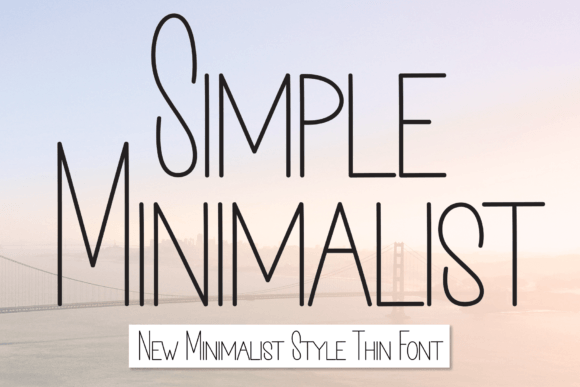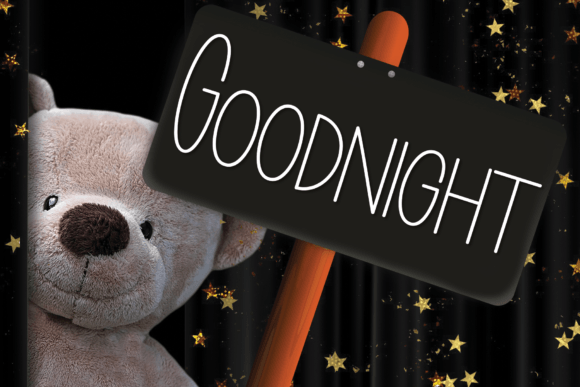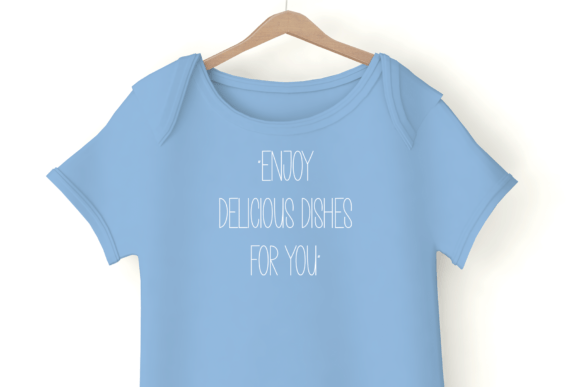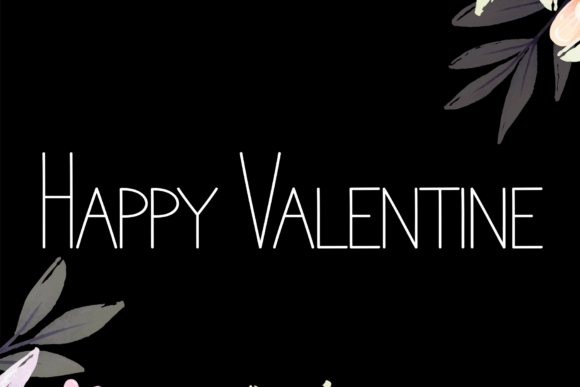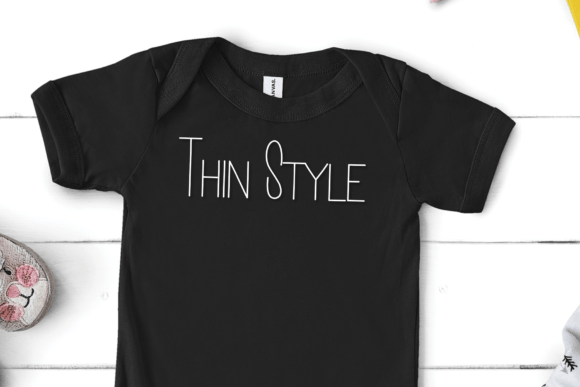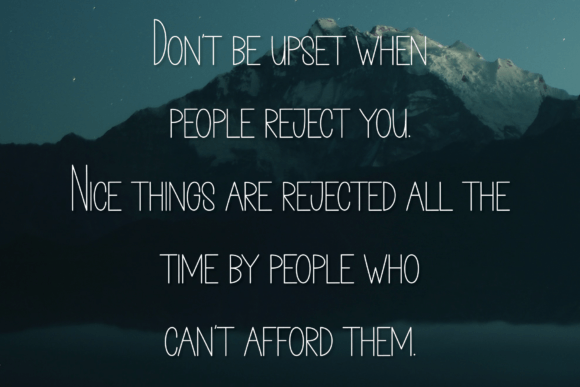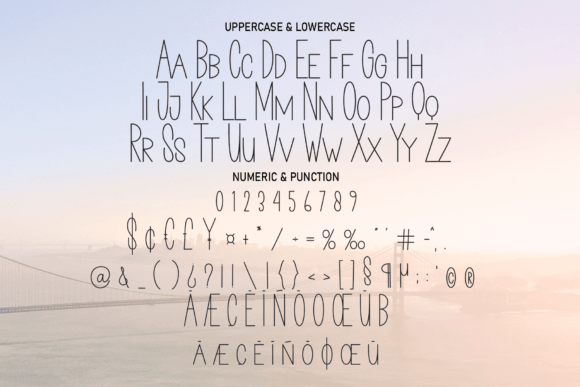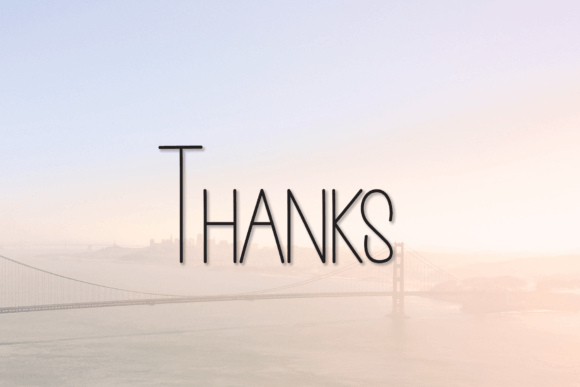
Simple Minimalist Font
A Clean and Effortless Handwritten Typeface
Simple Minimalist is a versatile handwritten font designed to bring a fresh, modern feel to your creative projects. Its smooth curves and clean strokes make it perfect for achieving a natural, minimalist look.
Whether you’re designing for personal use or professional branding, Simple Minimalist helps you create work that feels stylish, clear, and approachable.
Ideal for Greeting Cards and Invitations
This font is a great choice for greeting cards and invitations. Its simple, relaxed style makes your messages feel sincere and personal.
Use it for wedding invites, birthday cards, or thank-you notes. The clean letterforms keep your text legible while adding a warm, human touch.
Pair Simple Minimalist with neutral backgrounds and delicate illustrations for a soft, modern design that feels authentic and inviting.
Perfect for Headlines and Digital Content
Simple Minimalist shines in headlines and social media graphics. Its easygoing vibe helps your titles feel engaging without being overwhelming.
Use it to create blog headers, digital ads, or social media posts that stand out. Even at smaller sizes, the font remains crisp and readable.
Adding Simple Minimalist to your online content brings a cohesive, polished look that feels natural and professional.
Great for Branding and Packaging
If you want your brand to feel clean and contemporary, Simple Minimalist is the perfect font. It works beautifully in logos, packaging, and labels.
Its understated style adds elegance without sacrificing clarity. Use it alone for a minimalist feel or pair it with a bold sans-serif to create contrast.
Simple Minimalist is especially well-suited for brands that value simplicity, authenticity, and modern aesthetics.
Versatile and Easy to Use
This font includes uppercase and lowercase letters, numbers, punctuation, and ligatures, giving you everything you need to customize your designs.
It maintains its clean appearance across all sizes, whether you’re designing a large poster or a small product label.
Keep layouts spacious and avoid clutter to let Simple Minimalist’s elegance shine through.
Tips for a Minimalist Look
To get the most out of Simple Minimalist, pair it with soft, neutral color palettes like ivory, pale gray, or muted blush.
Keep supporting graphics simple—delicate lines and subtle icons complement the font without distracting from it.
Simple Minimalist looks best when you let its natural, handwritten style be the focal point.
A Must-Have Font for Your Collection
Simple Minimalist isn’t just another handwritten font—it’s a design essential for anyone who wants to create clean, modern work with a human touch.
Whether you’re crafting greeting cards, designing social media posts, building a brand identity, or creating elegant packaging, Simple Minimalist helps you achieve a minimalist aesthetic that feels genuine and warm.